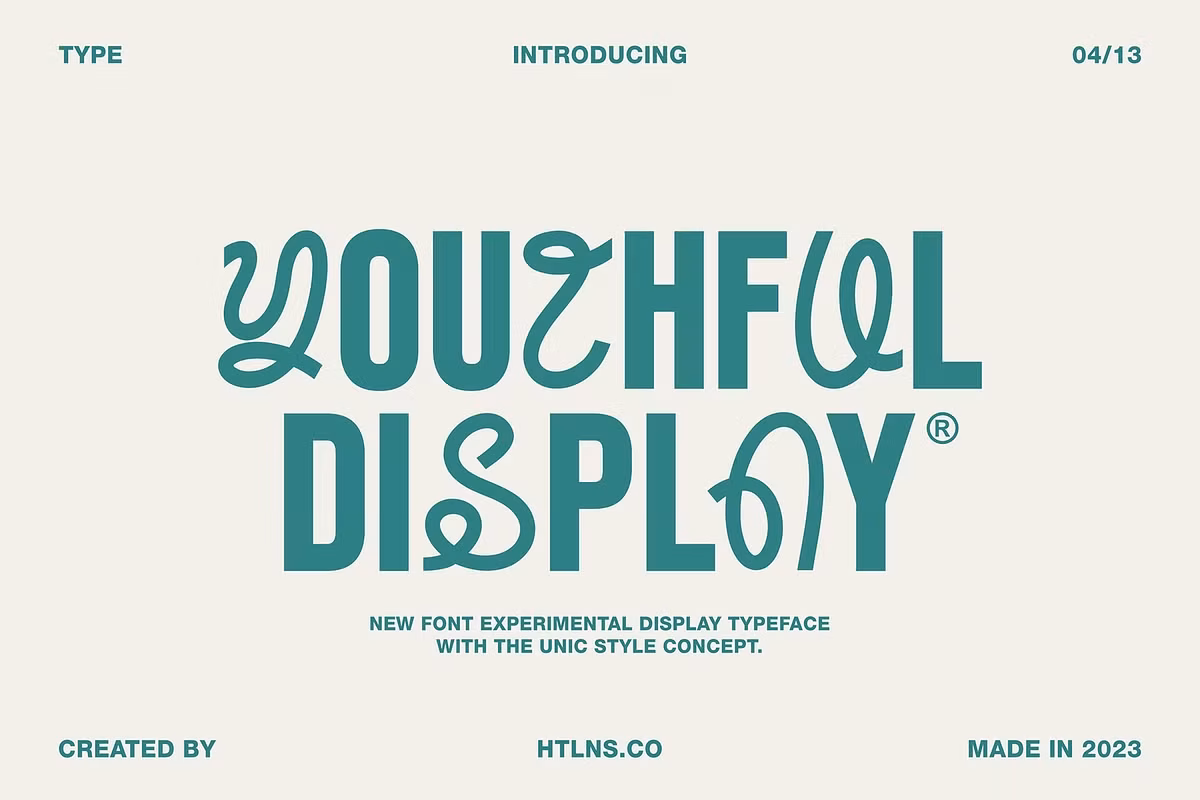
Youthful Display Font Free Download is a vibrant and energetic typeface designed to capture the playful spirit of youth. With bold, dynamic letterforms and a modern, slightly rounded style, this font is perfect for projects that need to feel fresh, fun, and full of life. Whether you're designing for a children’s brand, social media content, event posters, or youthful product packaging, this font delivers an engaging and friendly look.
Its display-friendly design ensures it stands out in headlines, logos, and promotional material, giving your project an eye-catching and modern touch. You can test it for free in personal designs, but a commercial license is required for any business or monetized use.
Bring energy and excitement to your work with Youthful Display Font Free Download and create designs that radiate positivity, playfulness, and youthful charm. Perfect for designers looking to inject some fun into their projects.